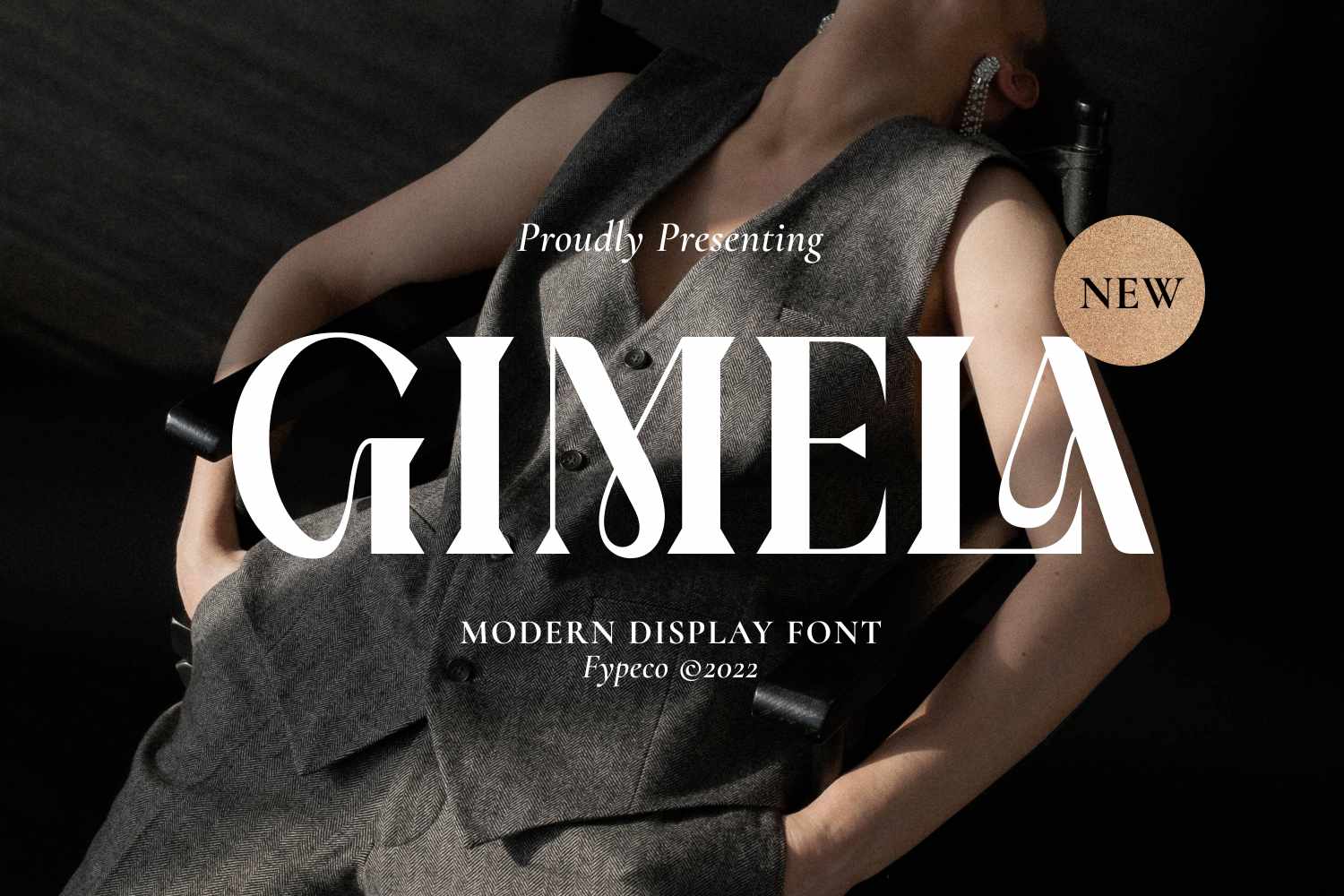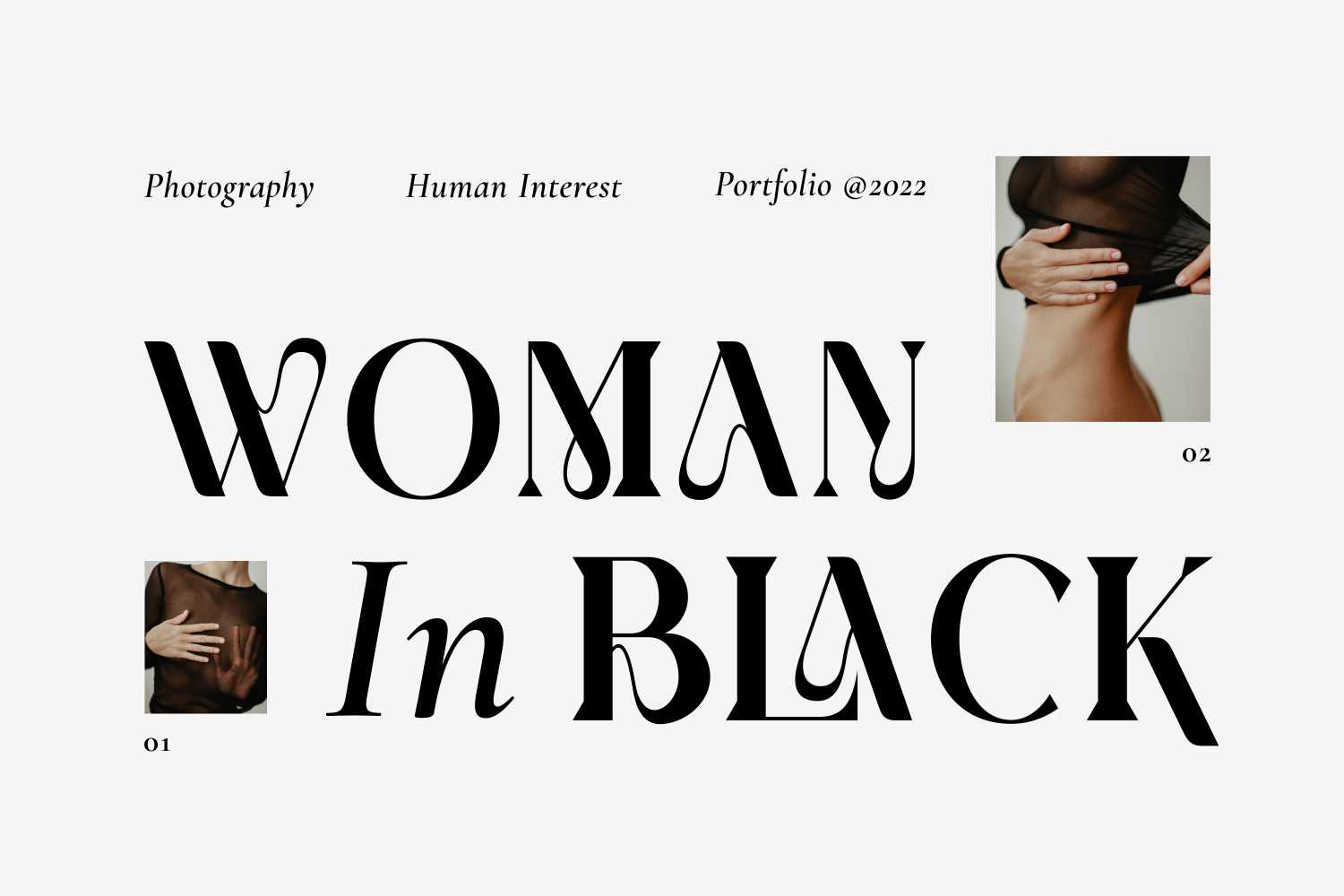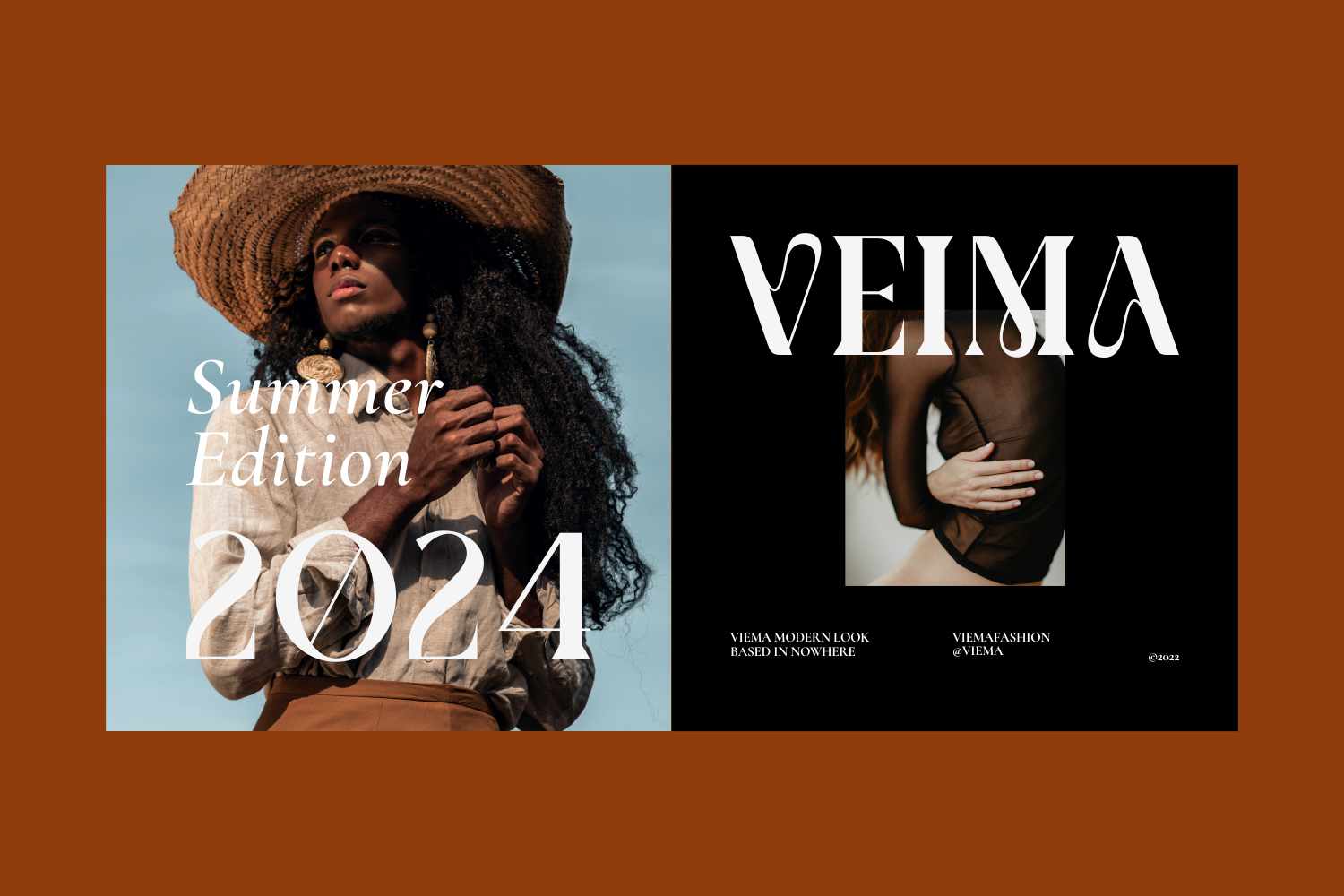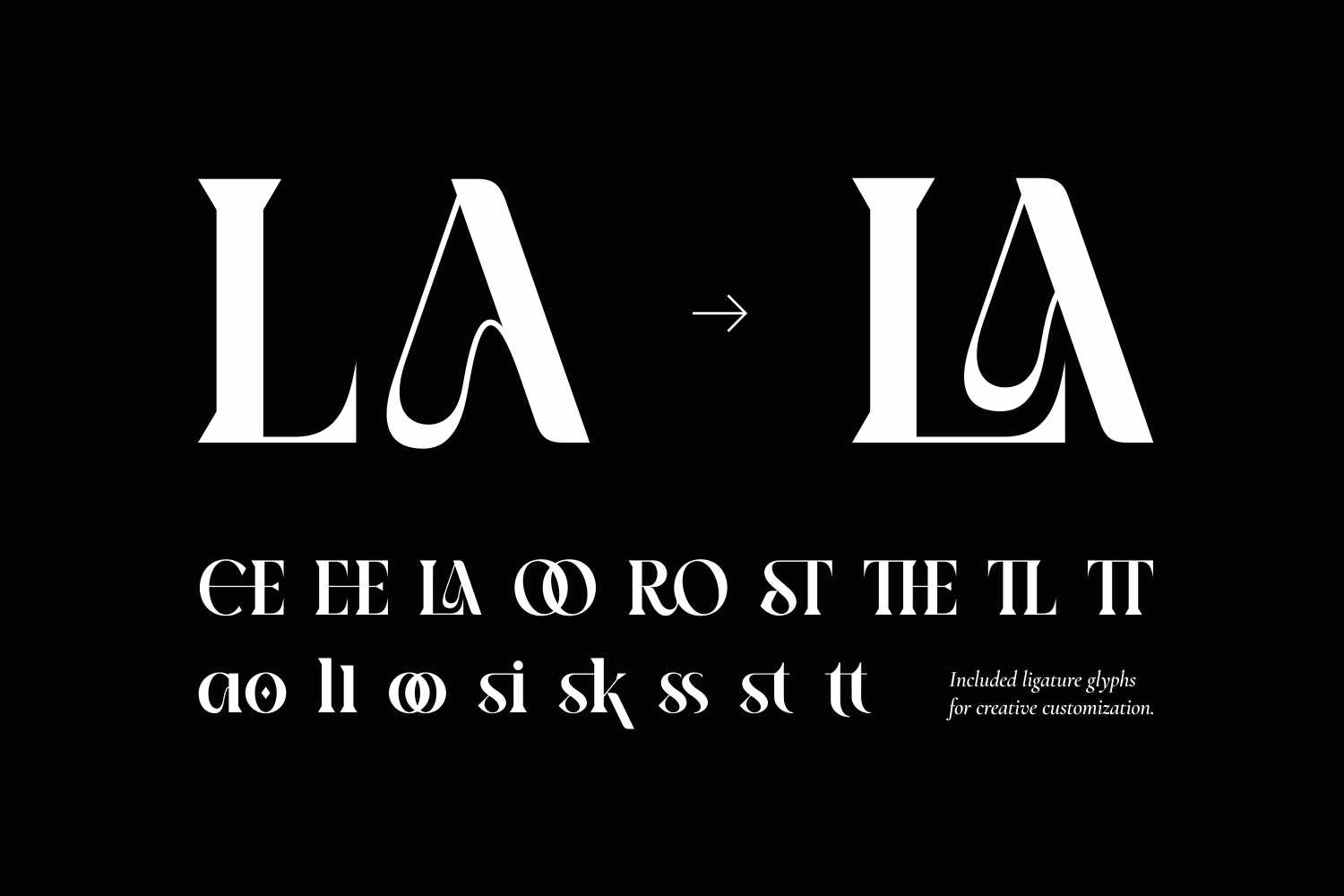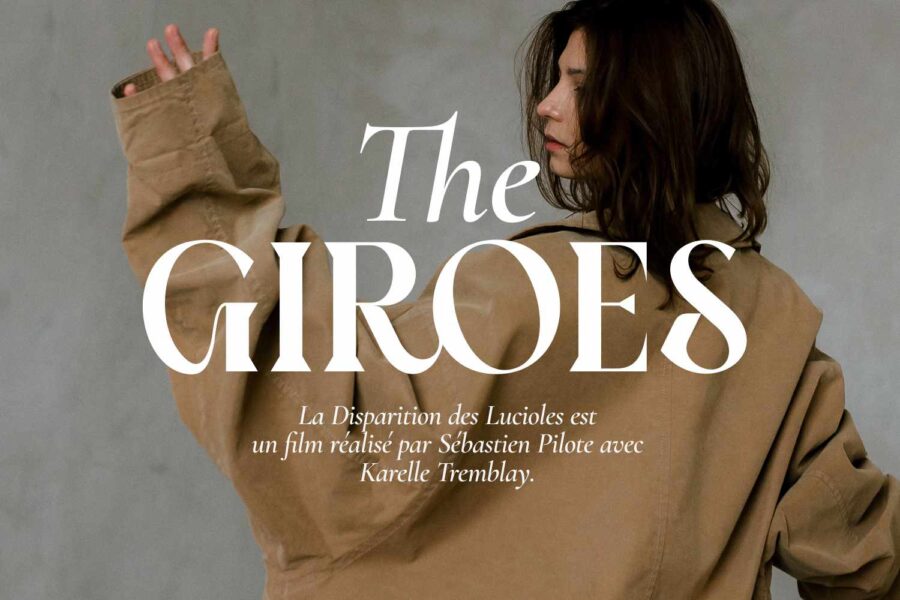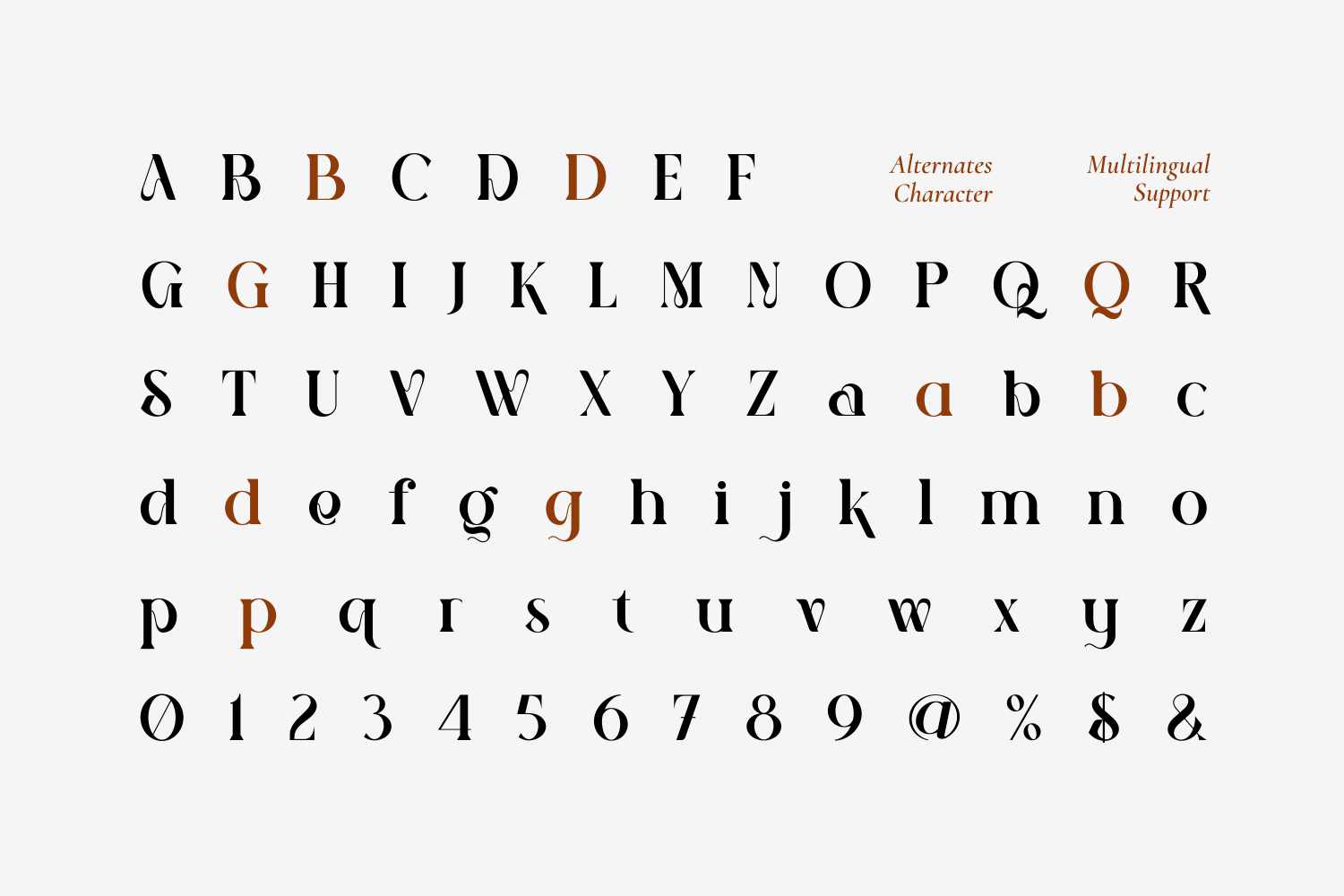
Gimela
Gimela is a bold and modern serif display font that blends elegance with striking details. Featuring unique alternate characters and creative ligatures, this font stands out with its stylish high contrast and refined curves. Perfect for fashion, editorial, branding, and advertising, Gimela adds a sophisticated yet contemporary touch to every design project.
With its versatile letterforms, Gimela is ideal for logos, magazine headlines, product packaging, posters, and luxury identity projects. The combination of classic serif structures and modern artistic alternates makes it a powerful choice for designers who want to create timeless yet fashionable visuals.